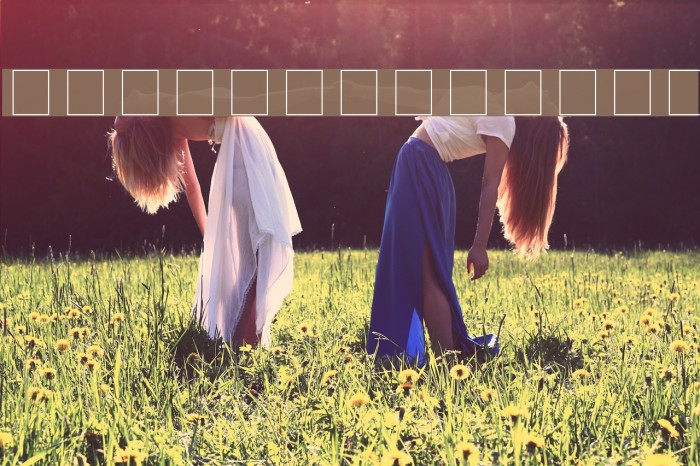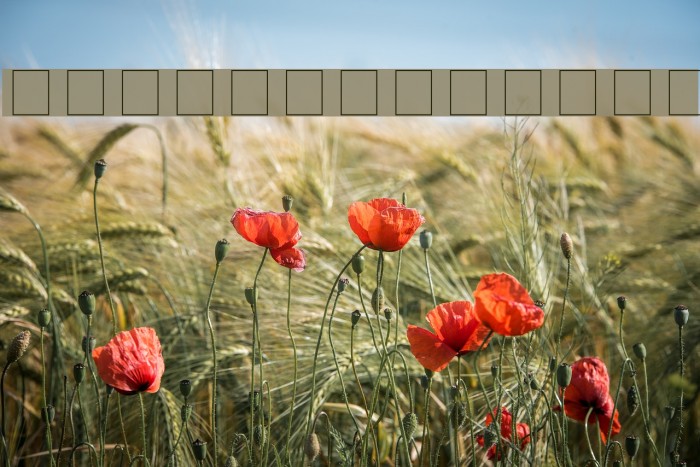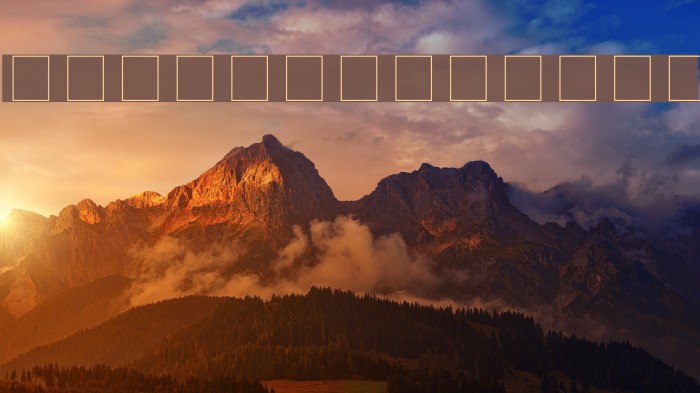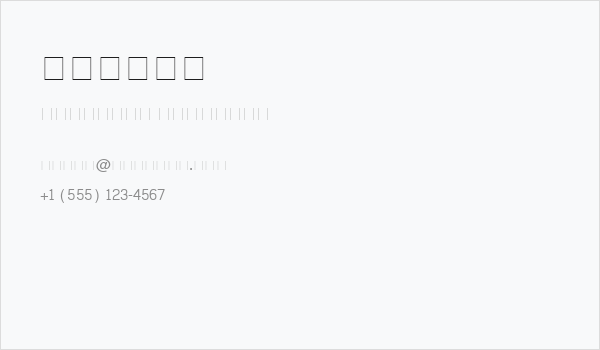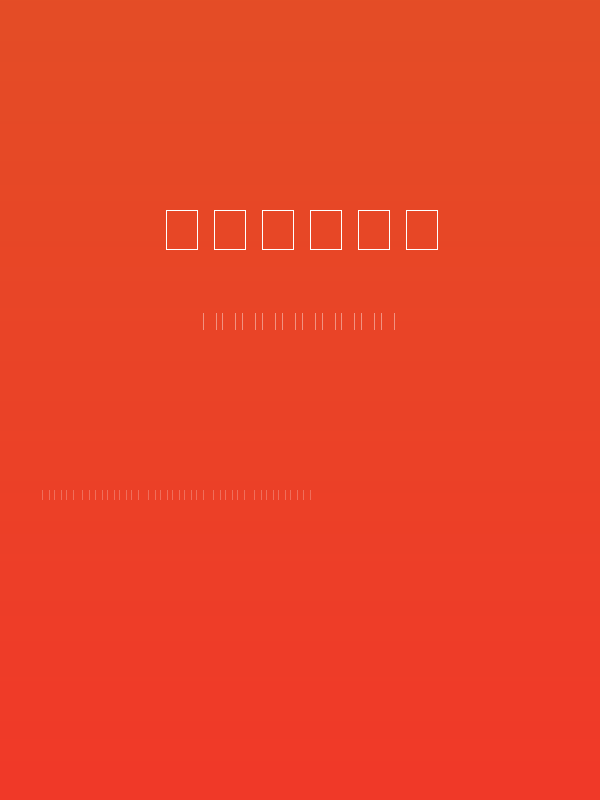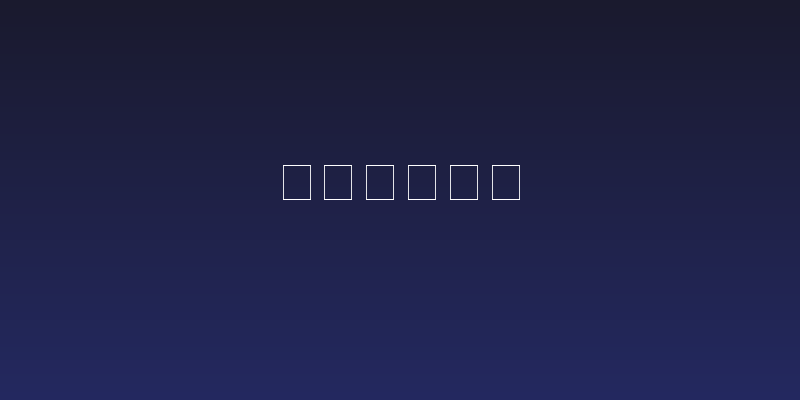
Chenla Font
Chenla Description
This font features a clean and modern design with a focus on clarity and readability. The characters are well-proportioned, with a consistent stroke width that gives a uniform appearance. The numerals are distinct and easy to read, making them suitable for both digital and print media. The special characters are designed to complement the overall style, ensuring they blend seamlessly with the rest of the font. Its simplicity and elegance make it versatile for various applications.